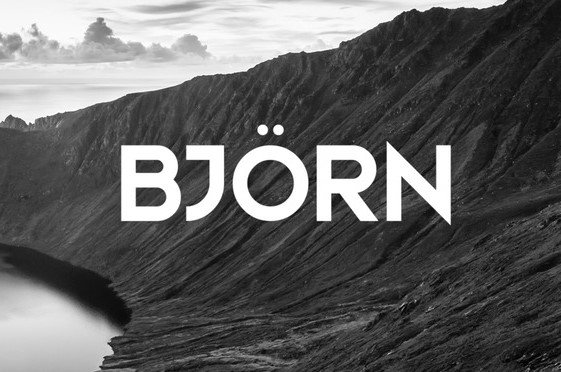
Presenting the distinctive Bjorn Font typeface, a contemporary sans serif and geometric font. It comes in two popular formats: TTF and OTF.
It has more than 200 glyphs and awesome ligatures that can help you to designs and developed eye-catchy and attractive projects easily. You can use any of its styles for creating your posters, banners, and many other projects.
The font has sharp corners edges that provided you a versatile typeface that can even work on large screens as well as pairing with the combination of magnolia sky font. You can see the consistency in all of its characters.
The font is workable in all kinds of devices, it works best to use with aileron font for extra features. You can creates large project with this typeface.
This unque and elegant font that looks like have heart script which has a popular texture so that can also be used in pairing also. That’s why each designer treated it as a really perfect font in all appreciate.
• Social media ads, banners and graphics
• Directories
• Game interfaces
• Tutorial videos
• Retail store interiors
• Postcards and flyers
What Type of Font Is Bjorn?
The Bjorn Font is the famous and amazing typeface which was product of Tugcu Design Co.